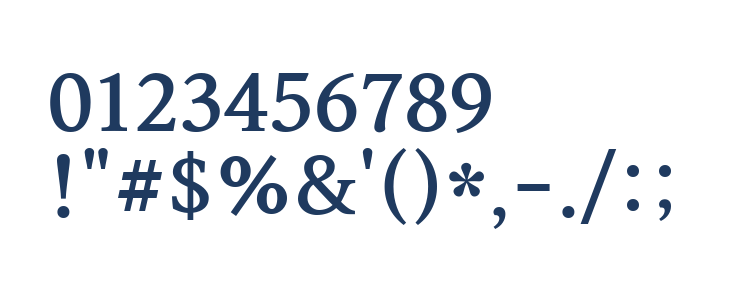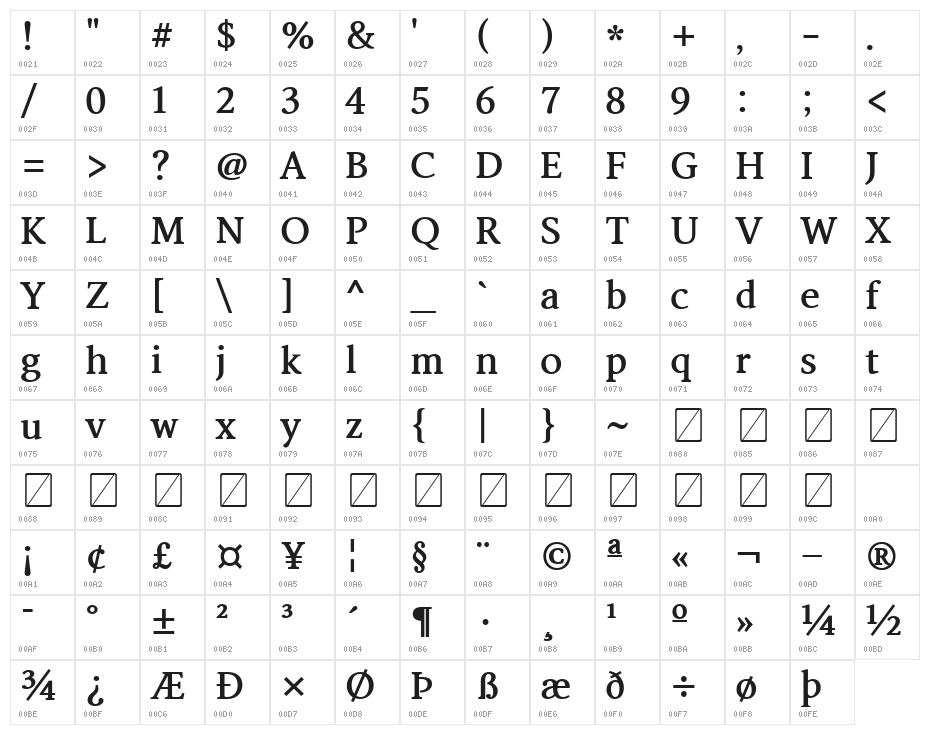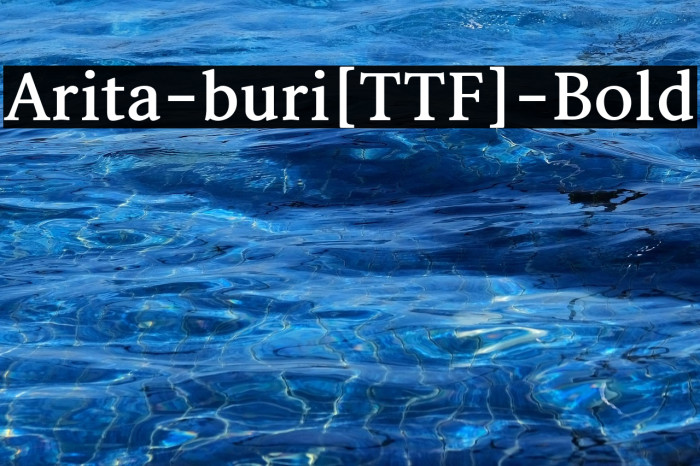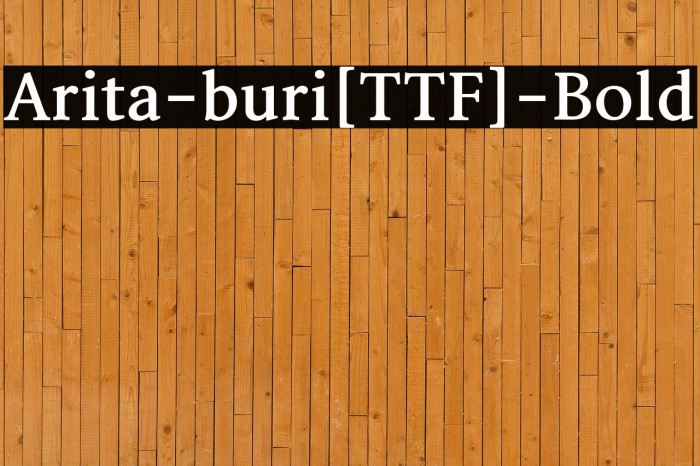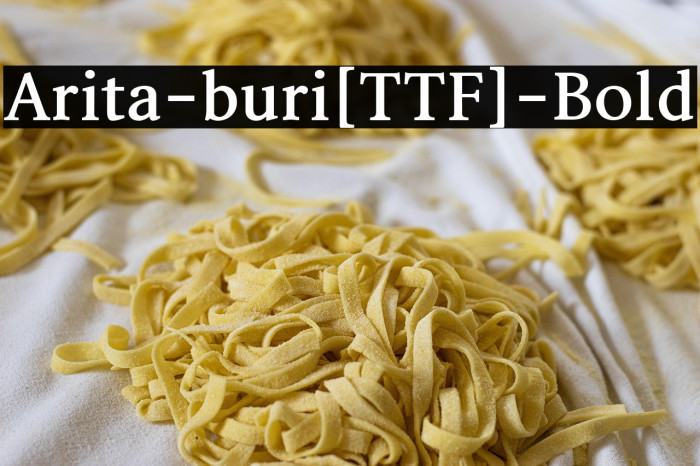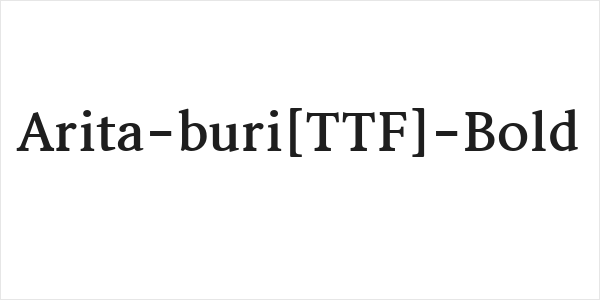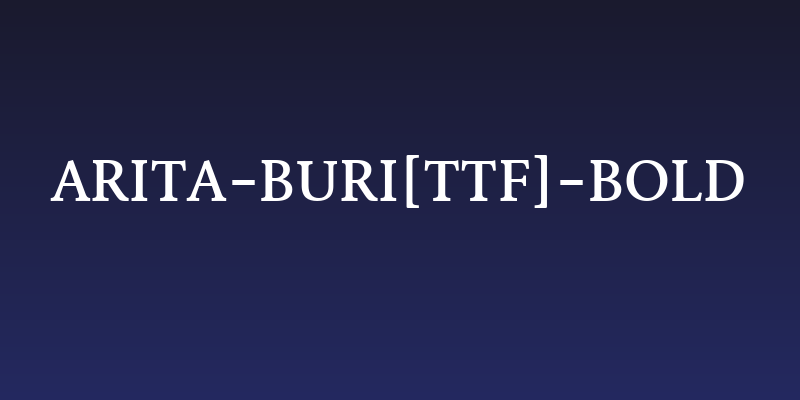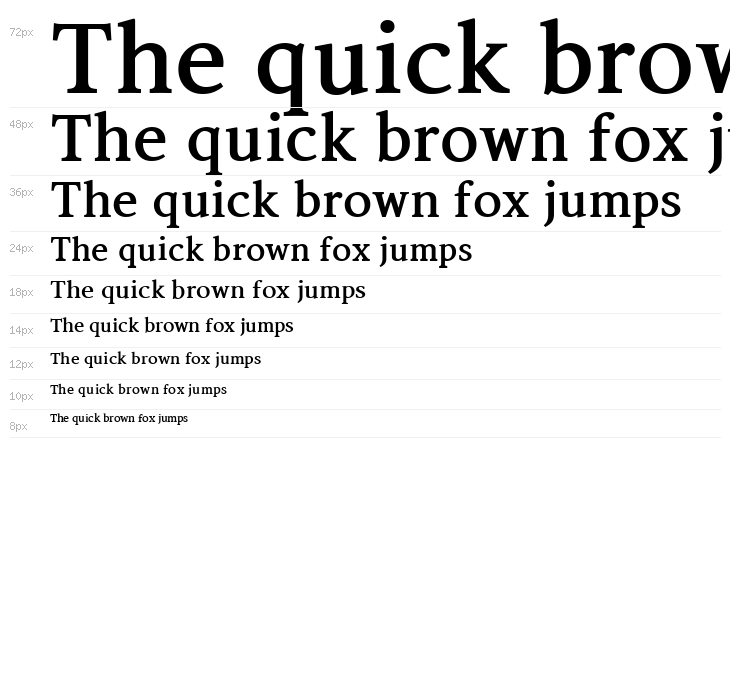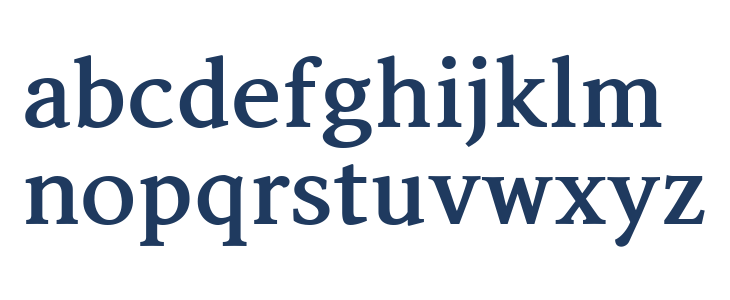
Arita-buri[TTF]-Bold Font
Arita-buri[TTF]-Bold Description
This font features a classic serif style with strong, bold strokes that convey a sense of authority and tradition. The uppercase letters are well-defined and balanced, while the lowercase letters maintain a consistent flow with slightly rounded edges. The numerals are clear and distinct, making them easily readable. Special characters are designed to complement the overall aesthetic, ensuring versatility in various applications. The font's bold weight and medium contrast make it suitable for impactful headlines and titles.
| Proposed Projects | Ideal for editorial design, book covers, formal invitations, and branding materials that require a traditional yet bold appearance. |